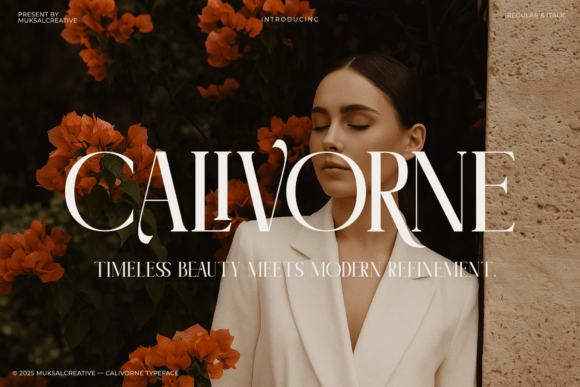
Its elegant letterforms, refined curves, and high contrast strokes immediately caught my attention. I knew I had found the one. In this article, I’ll share my experience with Calivorne Font, its features, and how to make the most of it in your design projects.
A Timeless Serif Typeface: Calivorne Font
Calivorne Font is a serif typeface that seamlessly blends classic refinement with modern sophistication. Its balanced proportions and elegant letterforms make it an ideal choice for fashion branding, magazine layouts, packaging, and refined logo design. The font comes in two styles: Regular and Italic, offering flexibility for both display and body text compositions.
One of the standout features of Calivorne Font is its collection of ligatures and alternate characters. These add a unique personality and fluidity to your typography work, making it perfect for crafting a minimal brand identity or a high-end editorial title.
- ✨ Elegant and refined letterforms that exude luxury and sophistication
- ✅ High contrast strokes that add depth and visual interest
- ✅ Ligatures and alternate characters for added personality and fluidity
- ✅ Two styles (Regular and Italic) for versatility
While Calivorne Font is an excellent choice for many design projects, there are a few things to keep in mind: 🤔
- ⚠️ Limited availability of condensed or extended styles, which may limit its use in certain projects
- ⚠️ Some users may find the font too ornate or elaborate for certain design applications
Calivorne Font was designed with the goal of creating a timeless serif typeface that blends classic refinement with modern sophistication. The designer drew inspiration from classic serif fonts, while incorporating modern elements to create a unique and elegant font. Although the real backstory of Calivorne is unknown, it can be assumed that it was crafted to fill a void in the typography world for a font that embodies luxury and sophistication.
Q: What is Calivorne Font?
A: Calivorne Font is a timeless serif typeface that blends classic refinement with modern sophistication, making it perfect for fashion branding, magazine layouts, packaging, and refined logo design.
Q: What OpenType features does Calivorne Font support?
A: Calivorne Font supports a range of OpenType features, including ligatures and alternate characters, which can be accessed in compatible design software.
Q: Is Calivorne Font suitable for body text?
A: While Calivorne Font is elegant and refined, it may not be the best choice for body text due to its high contrast strokes and ornate details. However, it can be used for body text in certain design applications, such as luxury branding or high-end editorial design.